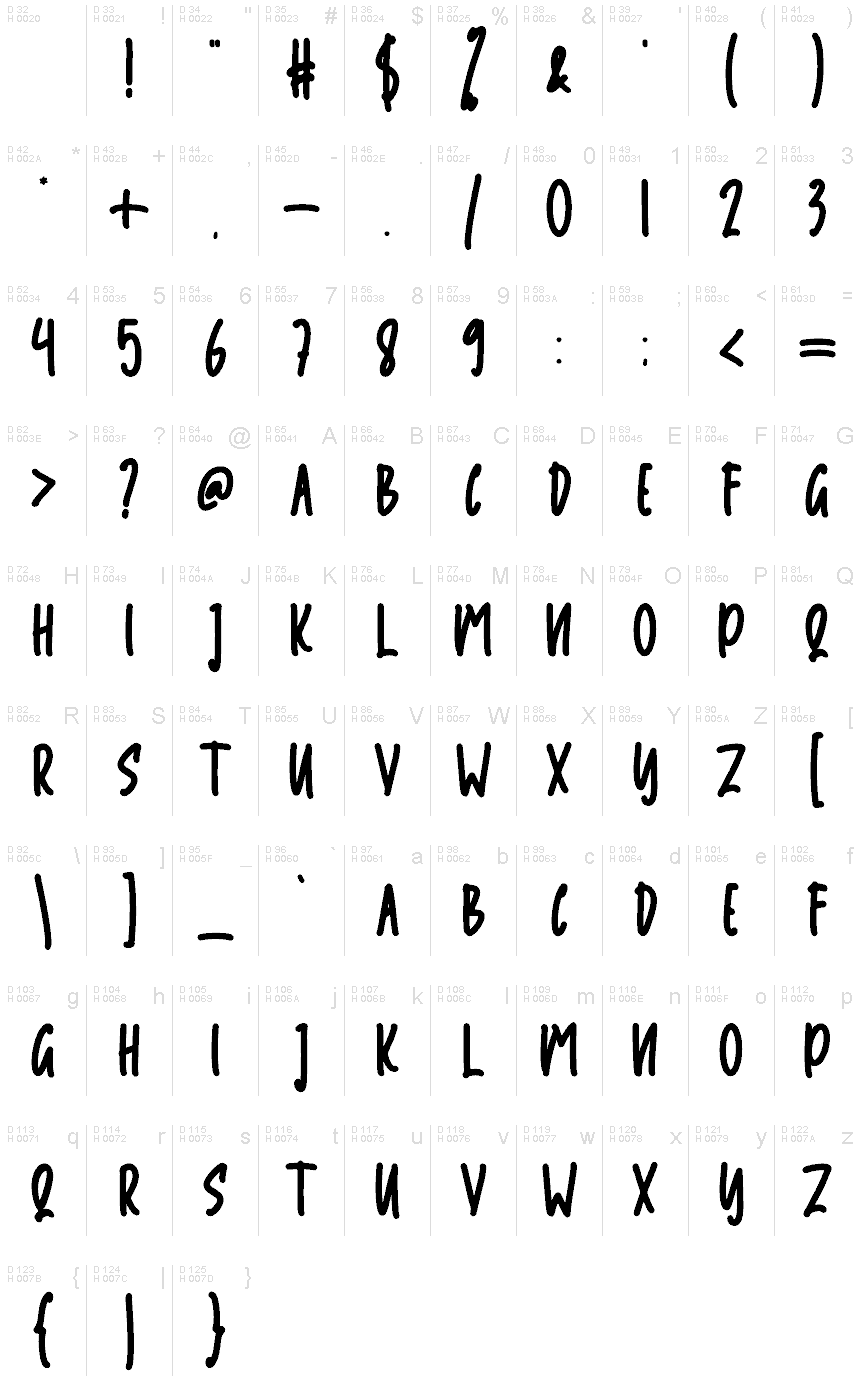
Palengo
Palengo font is a condensed handwritten font by Skiiller Studio with an expressive casual style. The overall look is organic yet contemporary thanks to the natural brush stroke of the letters that add some lively attitude and energy. The font easily captures the reader’s attention, and it can be set alone in your designs for instant recognizability.